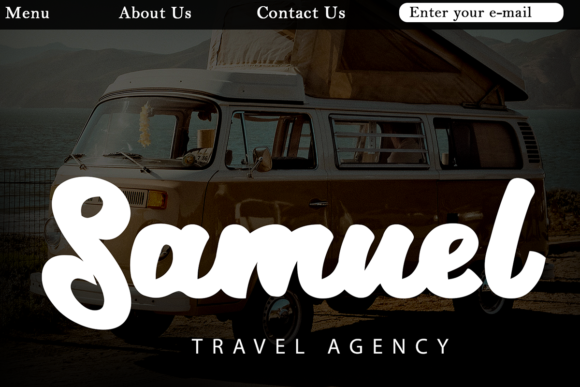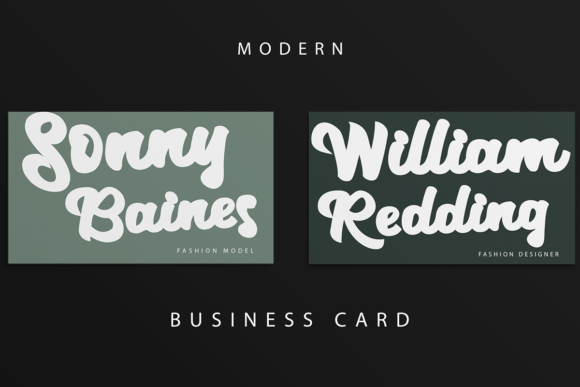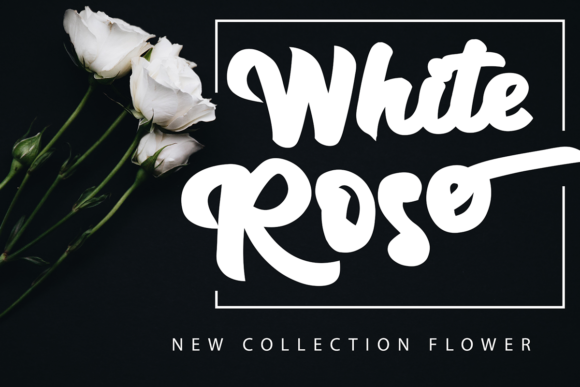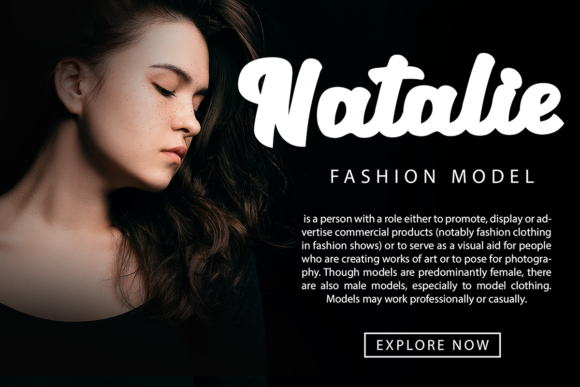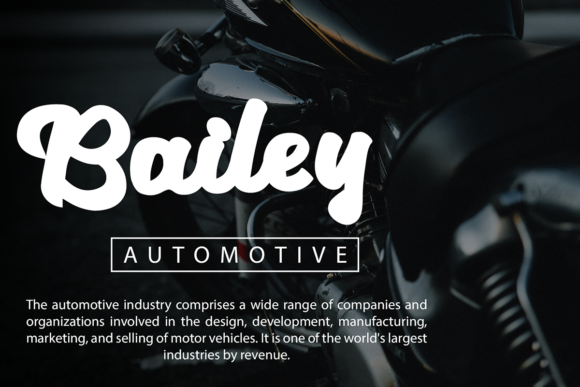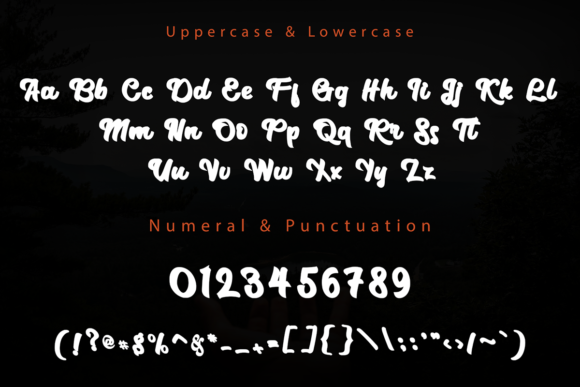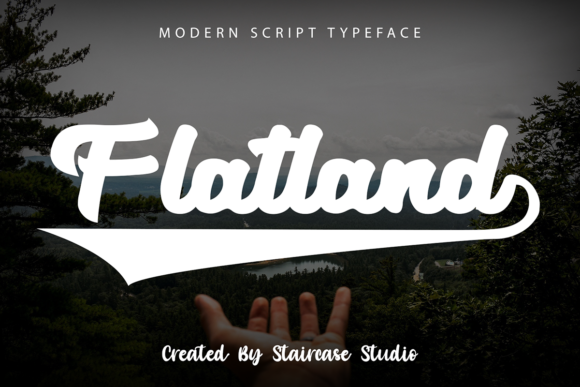
Introducing Flatland Font: The Ultimate Modern and Bold Handwritten Font
In the world of typography, fonts play a crucial role in conveying the tone and personality of a brand or design. For designers and crafters looking for a modern and bold handwritten font, Flatland Font is an excellent choice. This versatile font is perfect for a wide range of projects, from logotypes and branding designs to logos, digital lettering arts, and more.
What is Flatland Font?
Flatland Font is a modern and bold handwritten font that features a unique and stylish collection of letters and numbers. Its clean and elegant design makes it suitable for various projects, including:
- Logotypes and branding designs
- Logos and icons
- Digital lettering arts
- T-shirt and apparel designs
- Posters and magazines
- Signs and advertising designs
Key Features of Flatland Font
So, what makes Flatland Font stand out from other fonts? Here are some of its key features:
- Modern and bold design: Flatland Font boasts a modern and bold design that is sure to grab attention.
- Handwritten style: Its handwritten style gives it a personal and unique touch.
- Clean and elegant: The font features clean and elegant lines, making it perfect for a wide range of projects.
- Versatile: Flatland Font is suitable for various projects, from digital designs to print materials.
Benefits of Using Flatland Font
Using Flatland Font in your designs can bring numerous benefits. Here are some of the advantages of using this font:
- Enhance your brand’s personality: Flatland Font can help you create a unique and recognizable brand identity.
- Stand out from the crowd: Its modern and bold design ensures that your designs stand out from the competition.
- Easy to read: The font is clean and elegant, making it easy to read and understand.
- Time-saving: With Flatland Font, you can create stunning designs in no time.
How to Use Flatland Font
Using Flatland Font is easy and straightforward. Here are some tips on how to get the most out of this font:
- Pair it with other fonts: Experiment with pairing Flatland Font with other fonts to create a unique and interesting design.
- Adjust the size and color: Play around with different sizes and colors to make your design pop.
- Use it in digital designs: Flatland Font is perfect for digital designs, such as social media graphics and website headers.
- Use it in print materials: The font is also suitable for print materials, such as brochures, posters, and business cards.
In conclusion, Flatland Font is an excellent choice for designers and crafters looking for a modern and bold handwritten font. Its versatility, clean design, and elegant lines make it perfect for a wide range of projects. With Flatland Font, you can enhance your brand’s personality, stand out from the crowd, and create stunning designs in no time.